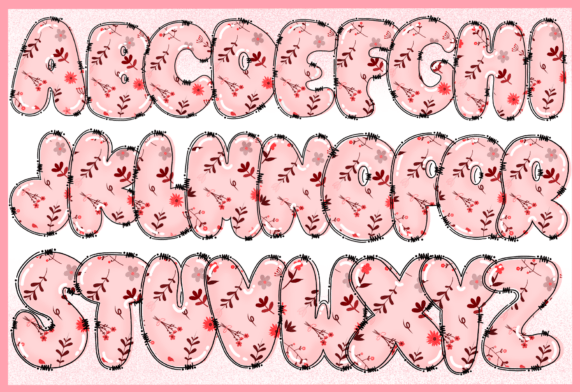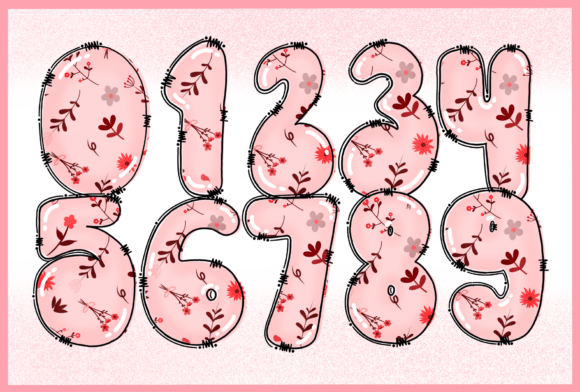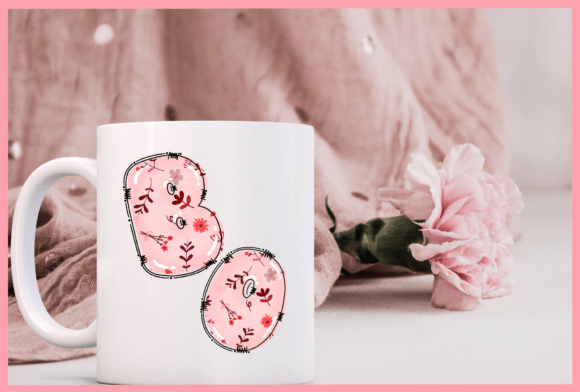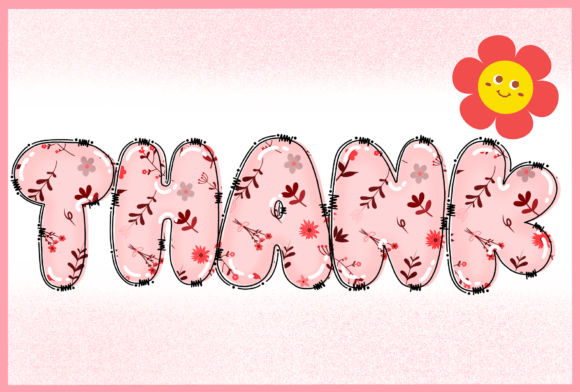
Introducing Blossom Cute Font: The Perfect Addition to Your Design Arsenal
Are you a designer or crafter looking for a font that exudes fun, femininity, and charm? Look no further than Blossom Cute Font, a bubbly and vibrant display font that’s bursting with adorable floral patterns. In this article, we’ll dive into the world of Blossom Cute Font, exploring its features, uses, and benefits, and why it’s the perfect addition to your design arsenal.
What is Blossom Cute Font?
Blossom Cute Font is a display font that’s designed to add a touch of whimsy and playfulness to your designs. Its unique and eye-catching floral patterns make it perfect for kids’ products, girly branding, crafts, and anything that needs a dose of fun and femininity. Whether you’re creating a logo, label, or social media graphic, Blossom Cute Font is sure to make your design stand out.
Key Features of Blossom Cute Font
- Vibrant and Bubbly Design: Blossom Cute Font features a vibrant and bubbly design that’s sure to capture attention.
- Adorable Floral Patterns: The font is decorated with adorable floral patterns that add a touch of charm and femininity to your designs.
- Perfect for Kids’ Products: The font’s playful and whimsical design makes it perfect for kids’ products, such as toys, clothing, and educational materials.
- Girly Branding: Blossom Cute Font is also ideal for girly branding, including beauty products, fashion labels, and lifestyle brands.
- Crafting and DIY Projects: The font’s playful design makes it perfect for crafting and DIY projects, such as scrapbooking, card making, and party decorations.
Benefits of Using Blossom Cute Font
So, why should you choose Blossom Cute Font for your design projects? Here are just a few benefits of using this adorable font:
- Adds a Touch of Whimsy: Blossom Cute Font adds a touch of whimsy and playfulness to your designs, making them more engaging and eye-catching.
- Versatile: The font is versatile and can be used for a wide range of design projects, from kids’ products to girly branding.
- Easy to Read: Despite its playful design, Blossom Cute Font is easy to read, making it perfect for use in titles, headings, and body copy.
- Unique and Memorable: The font’s unique and adorable design makes it memorable and distinctive, helping your brand or product stand out from the crowd.
How to Use Blossom Cute Font
Using Blossom Cute Font is easy! Here are a few tips to get you started:
- Pair with Other Fonts: Pair Blossom Cute Font with other fonts to create a unique and eye-catching design.
- Use for Titles and Headings: Use the font for titles and headings to add a touch of whimsy and playfulness to your designs.
- Add to Your Brand Identity: Add Blossom Cute Font to your brand identity to create a consistent and recognizable visual style.
In conclusion, Blossom Cute Font is a must-have font for designers and crafters looking to add a touch of fun, femininity, and charm to their designs. With its vibrant and bubbly design, adorable floral patterns, and versatility, this font is perfect for kids’ products, girly branding, crafts, and anything that needs a dose of whimsy and playfulness. So why wait? Download Blossom Cute Font today and start creating designs that are sure to capture attention and leave a lasting impression!